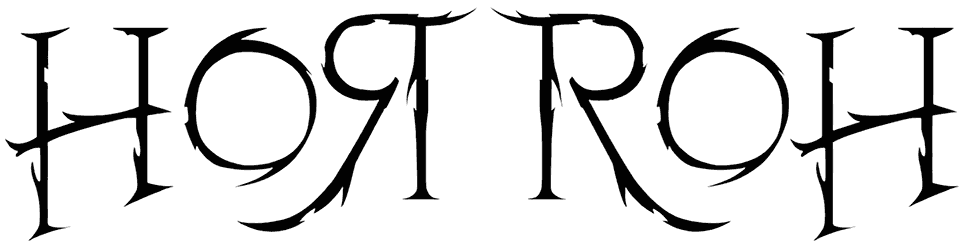
Horroh Font
If simplicity and horror are your priority, Horroh is what you want. This horror font has small appendages on each letter, which, in addition to their narrowness and lack of small letters, induce a mild sense of horror in the viewer.
That’s why this satanic font doesn’t need very busy backgrounds and can easily create any level of horror you want in posters, titles, and computer games.